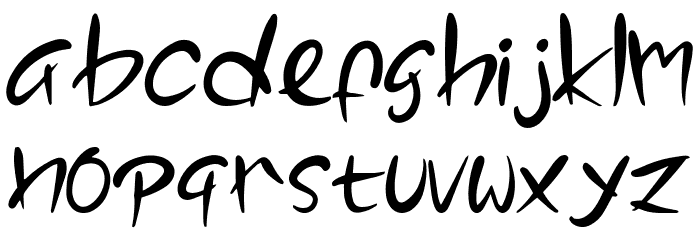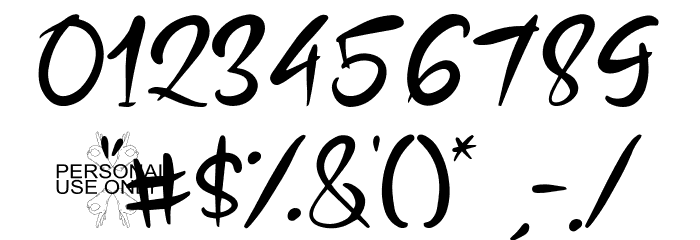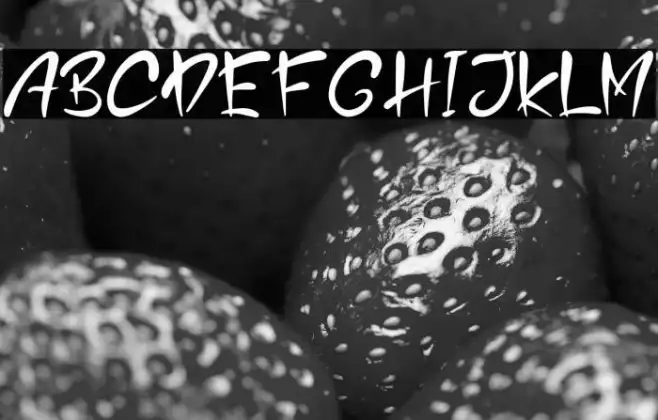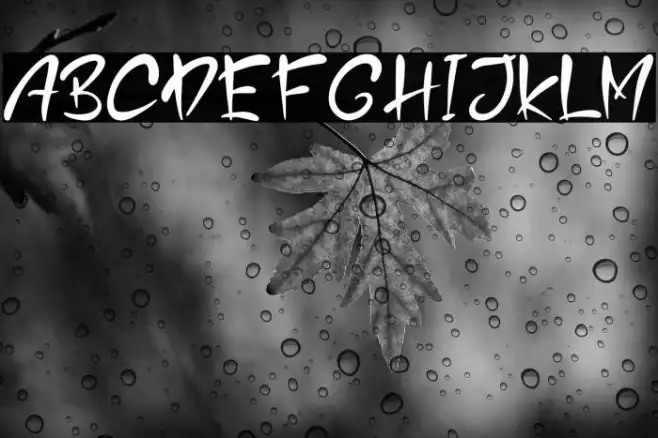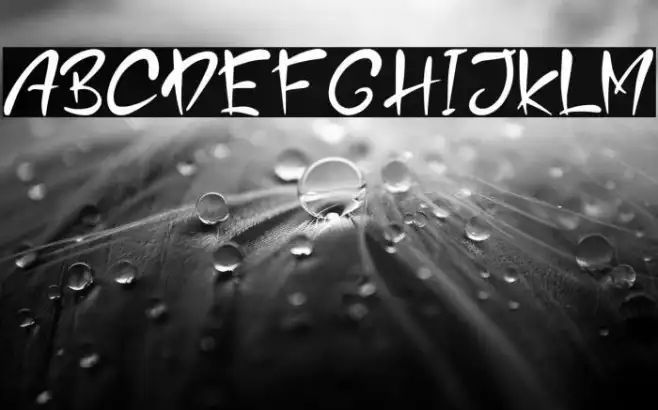
After Story Font
This font features a dynamic and energetic handwritten style, characterized by its fluid and slightly irregular strokes. The letters have a casual, yet artistic flair, with varying thickness that adds a sense of movement and personality. The uppercase and lowercase letters maintain a consistent style, while the numerals and special characters complement the overall look. This font's playful and informal nature makes it suitable for creative projects that require a personal touch.
A lively handwritten font with fluid, artistic strokes.
- Font: After Story
- Proposed Projects: Ideal for greeting cards, invitations, personal branding, and creative social media graphics.
- Category: Handwritten
- Overall Style: Casual, Artistic
- Use Case: Logos, Headlines, Creative projects